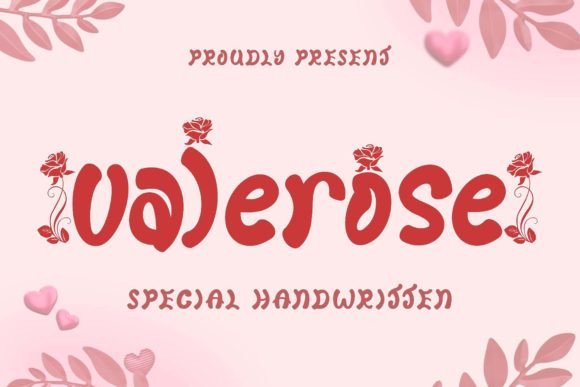
Introducing the magnificent Valerose Font, a captivating handwritten display font that will enchant your creations with its ethereal beauty and boundless elegance. Crafted with the utmost care by the renowned Selvia Design, Valerose is not just a font; it's an invitation to elevate your designs to new heights of sophistication.
Embellished with delicate roses that gracefully adorn alternate letters, Valerose commands attention with its enchanting charm. Each stroke is meticulously penned, flowing effortlessly like a gentle breeze, leaving you breathless with its captivating allure. Its PUA encoding grants you effortless access to an array of stunning glyphs and swashes, unlocking endless possibilities for personalization and creativity.
Whether you're a seasoned designer or a budding enthusiast, Valerose is the perfect font to infuse your projects with a touch of timeless elegance. Its versatility seamlessly complements planners, invitations, branding, logos, social media posts, and more. Picture your planner adorned with Valerose's enchanting script, transforming it into an intimate sanctuary where dreams take flight. Envision your invitations blooming with ethereal beauty, captivating guests with their heartfelt elegance.
Valerose is not just a font; it's an experience. Immerse yourself in its captivating embrace and let your imagination soar. Its graceful curves and delicate details will inspire you to create designs that resonate with beauty and sophistication. Embrace the power of Valerose and unlock a world of limitless creative possibilities.